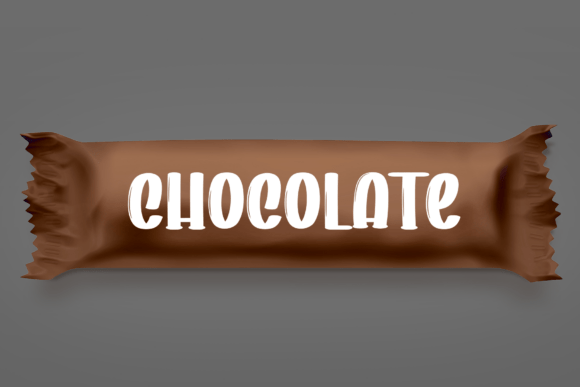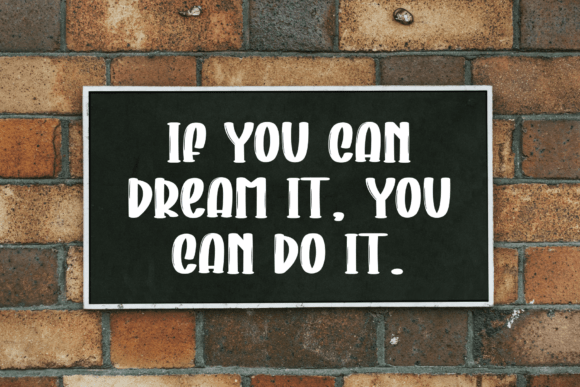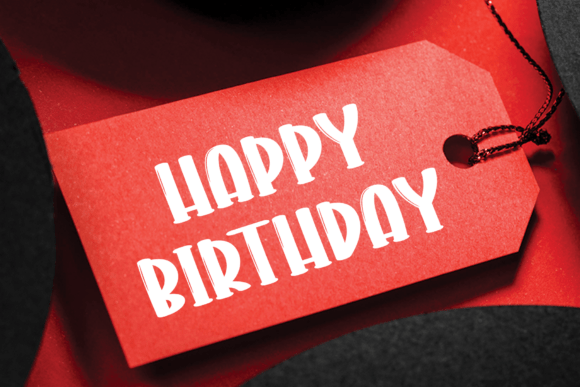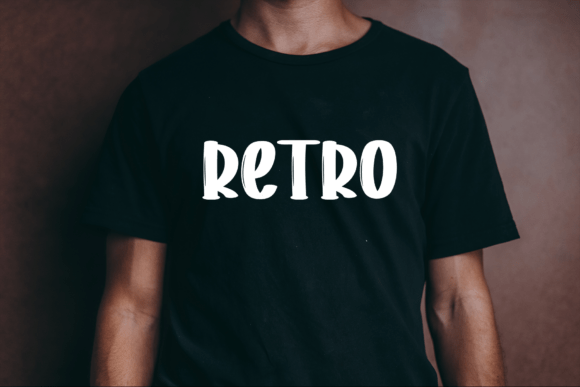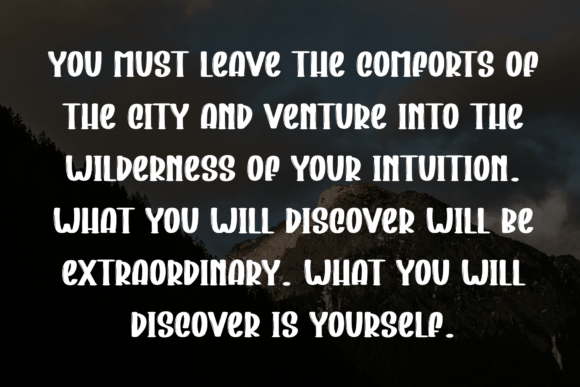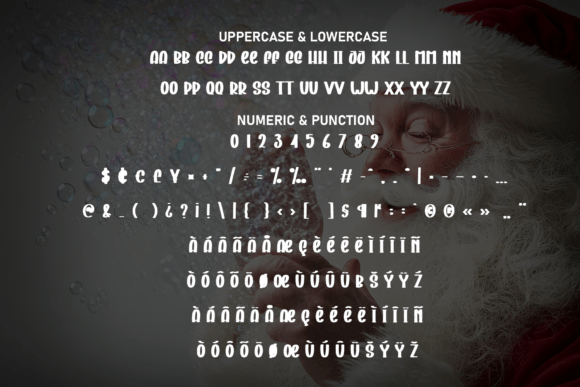
Introduction to Santa Bubble Font
Have you ever found yourself stuck in a creative rut, scrolling through design resources, searching for that perfect font to elevate your project? For many designers, the quest for the perfect font can be a daunting task, especially when it comes to finding one that exudes a high-quality, approachable vibe.
Enter the Santa Bubble Font, a game-changing addition to any designer’s toolkit. This versatile display font is designed to capture the essence of relaxed design while maintaining clarity and style, making it an ideal choice for posters, branding, packaging, and social media graphics. Whether you’re working on a free download project or a paid gig, the Santa Bubble Font is sure to add a fresh and friendly touch to any creative project.
Key Features of Santa Bubble Font
- High-quality, unique design ideal for creative projects and festive themes.
- Features a bold, playful design with a mix of serif and script elements, adding a touch of whimsy to any project.
- Designed to be highly legible at various font sizes, making it suitable for use in a range of creative applications.
Honest Review: Santa Bubble Font
I recently stumbled upon the Santa Bubble Font and I’m excited to share my thoughts on this delightful design resource. As a designer, I appreciate a high-quality font that can elevate my creative projects.
Here are some aspects that work well for me:
- ✨ Unique and playful design style that’s perfect for festive projects
However, I do have some limitations to mention:
- ⚠️ Limited font weight options, which might be a concern for designers who prefer more flexibility
- ⚠️ Not ideal for serious or corporate projects, as it’s more suited for playful and creative designs
Overall, I’m impressed with the Santa Bubble Font’s potential to add a touch of whimsy to my design projects. While it may have some limitations, its unique design style and transparent background make it a valuable resource for designers looking to add some festive flair to their work.
Tips for Getting the Most Out of the Santa Bubble Font
Use the Santa Bubble Font in conjunction with other design elements to create a unique and eye-catching design. Experiment with different font sizes, colors, and alignments to find the perfect look for your creative project.
The Santa Bubble Font is perfect for holiday-themed designs, such as Christmas cards and gift tags. It can also be used in other creative projects, such as party invitations and social media graphics. With a transparent background, the font is easy to combine with other design elements to create a cohesive and professional look.
What is the recommended font size for the Santa Bubble Font?
The recommended font size for the Santa Bubble Font is between 12 and 24 points, depending on the design context and intended use. However, feel free to experiment with different font sizes to achieve the desired visual effect in your creative project.